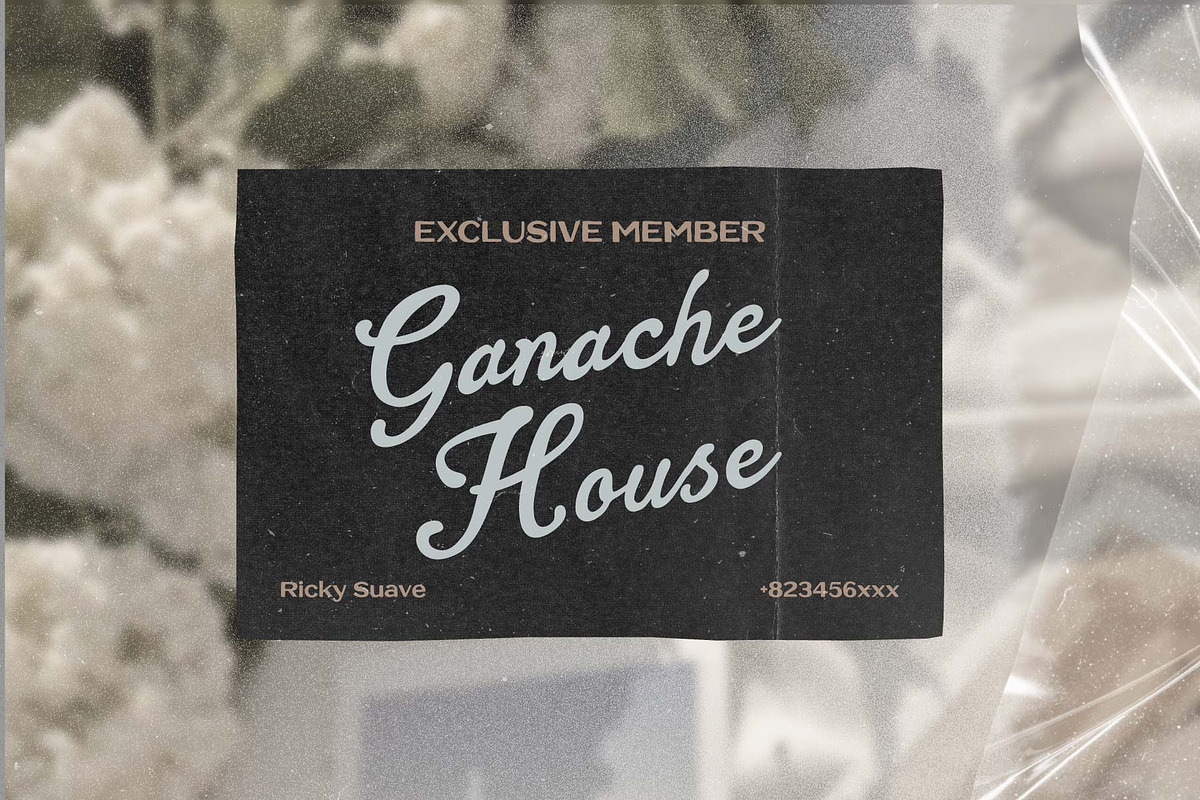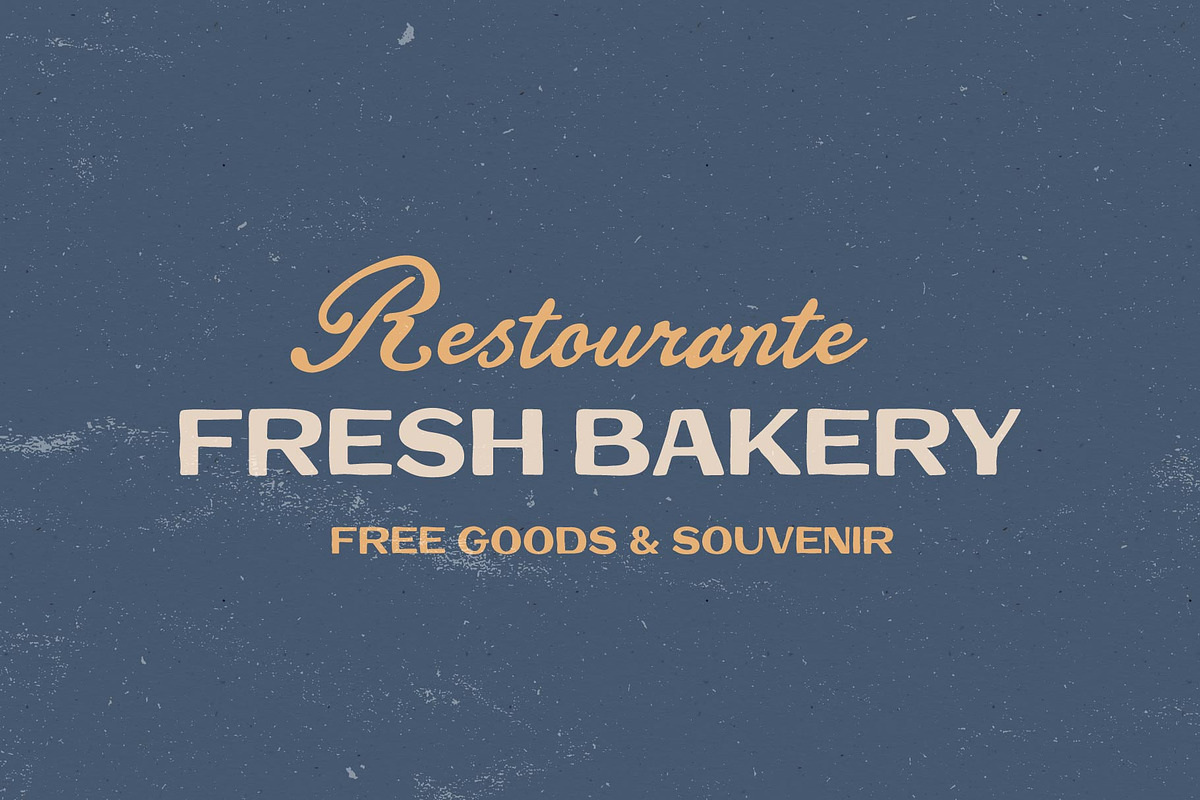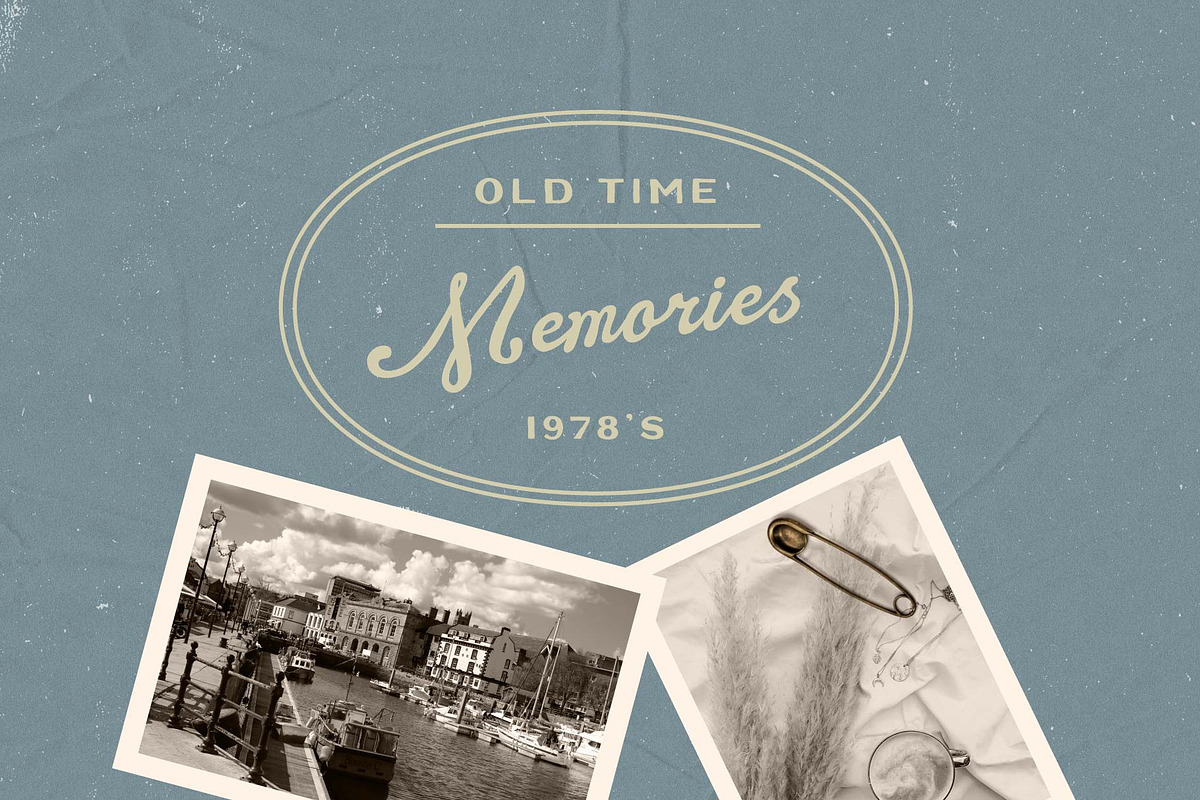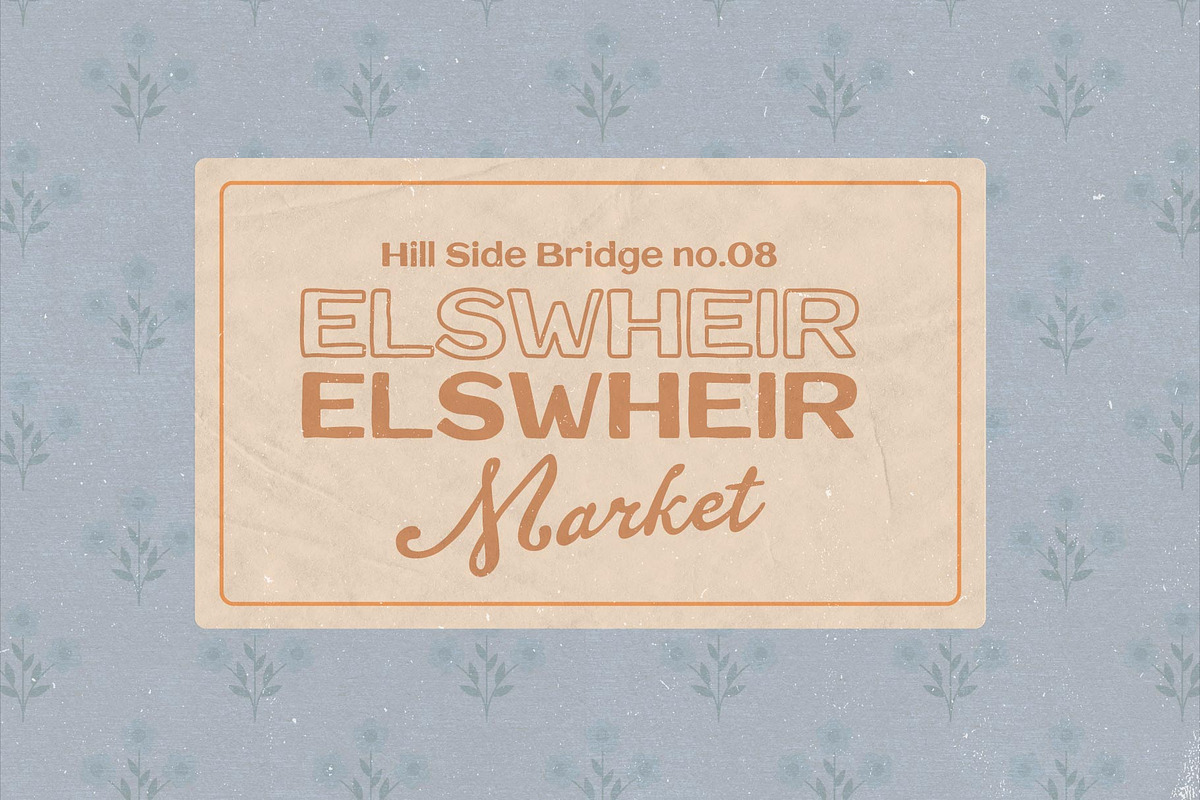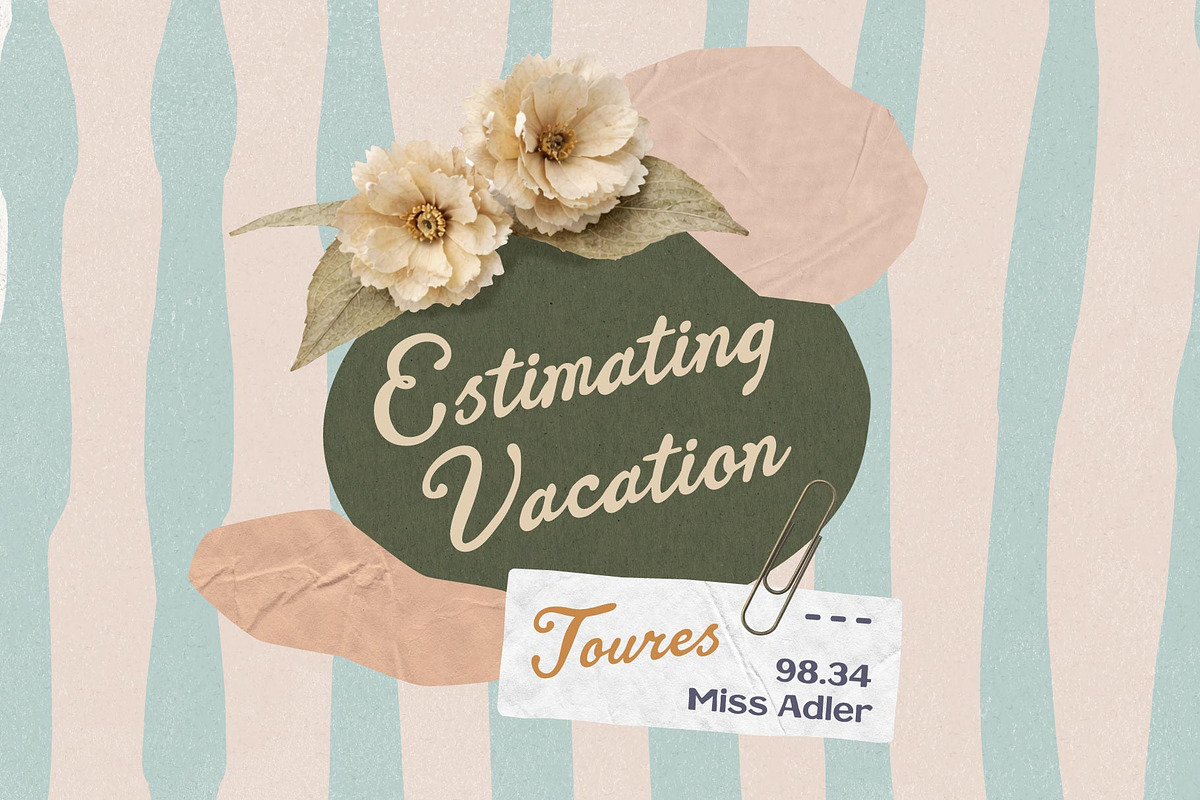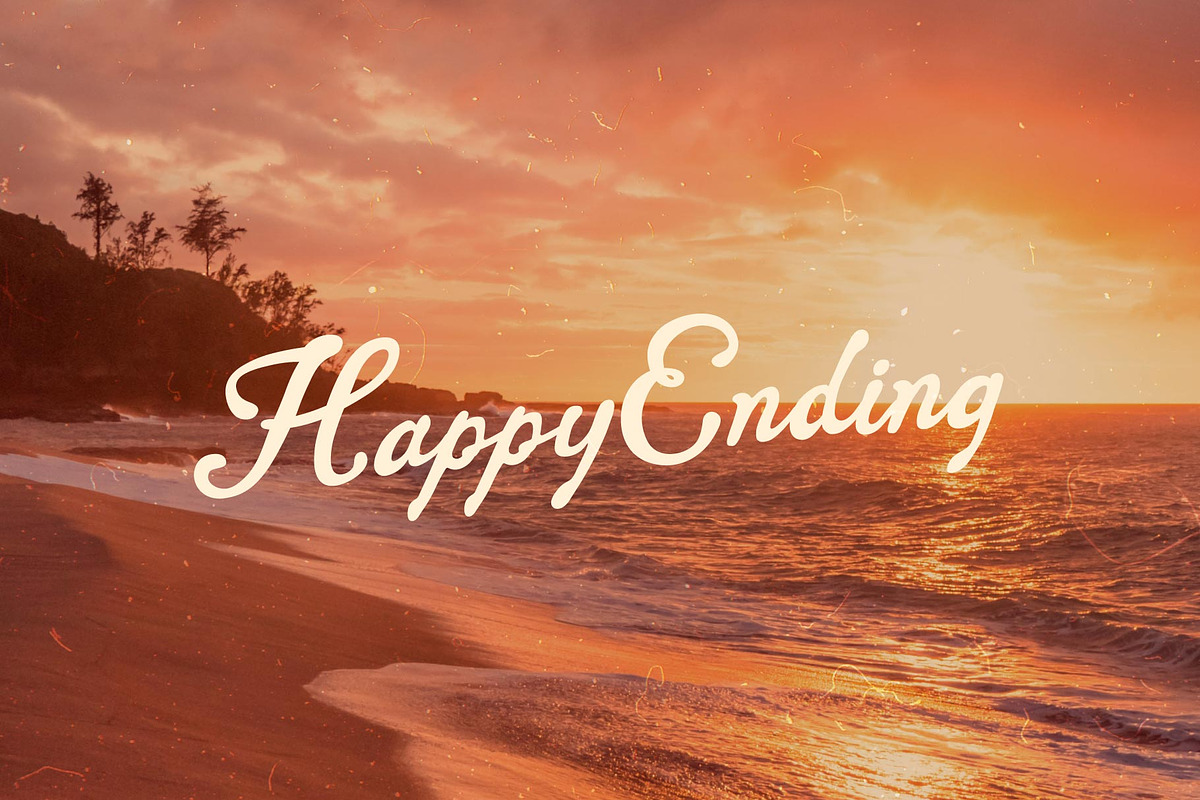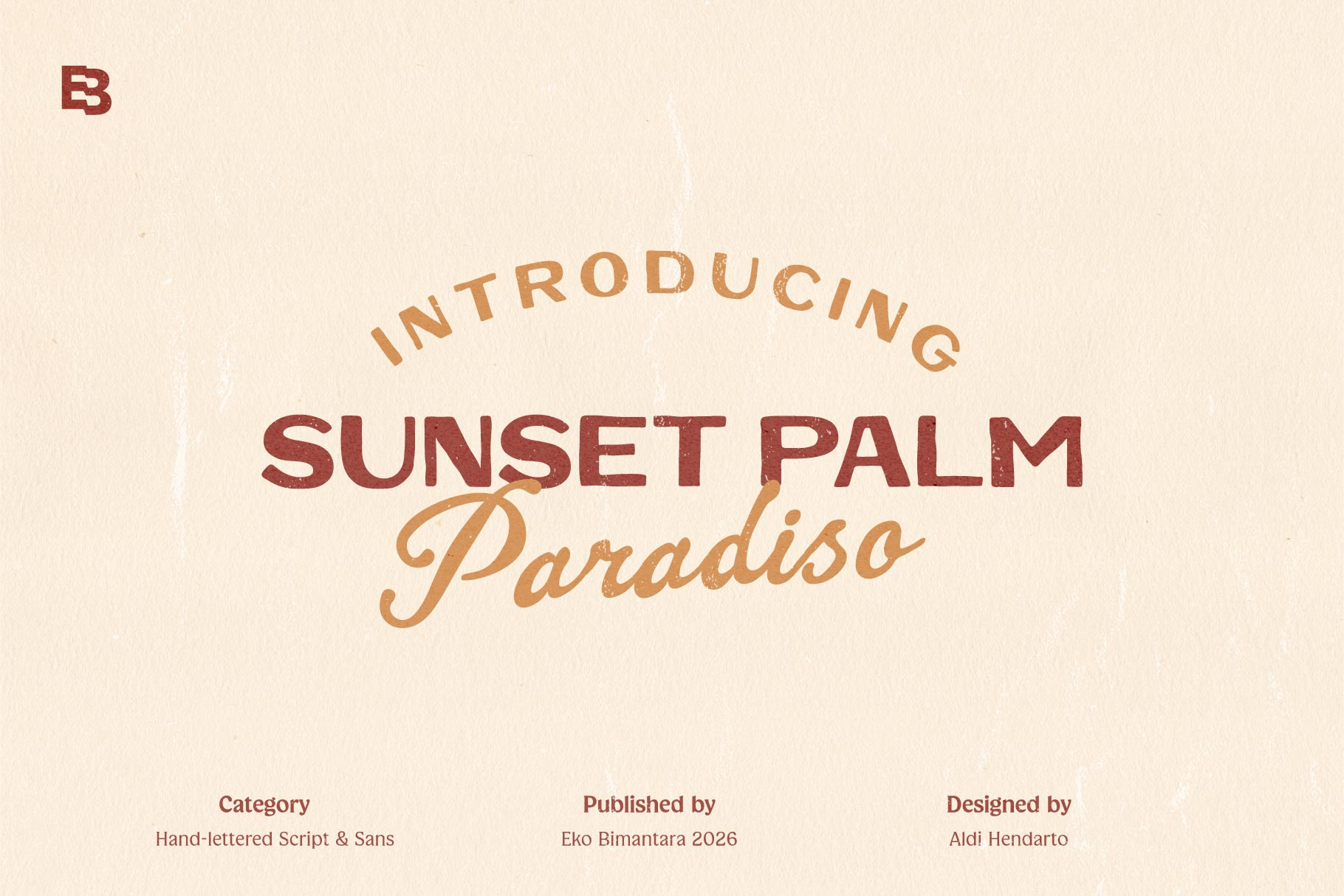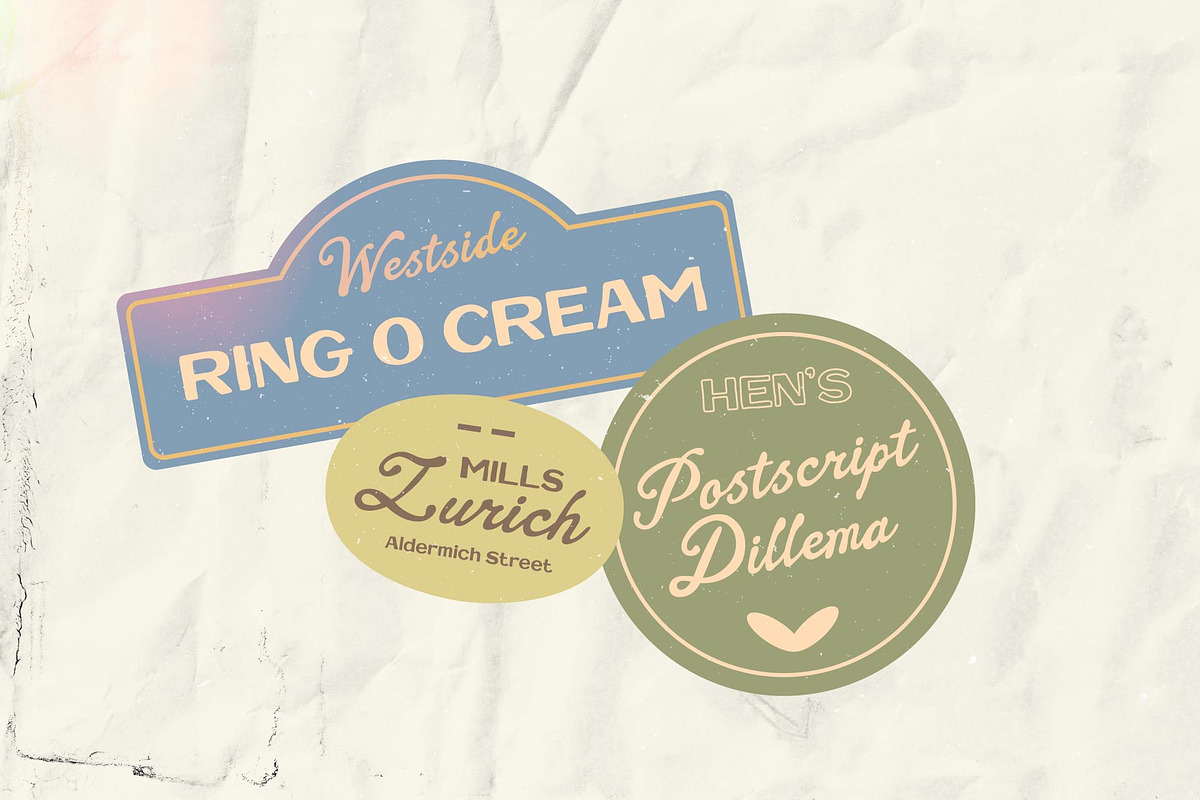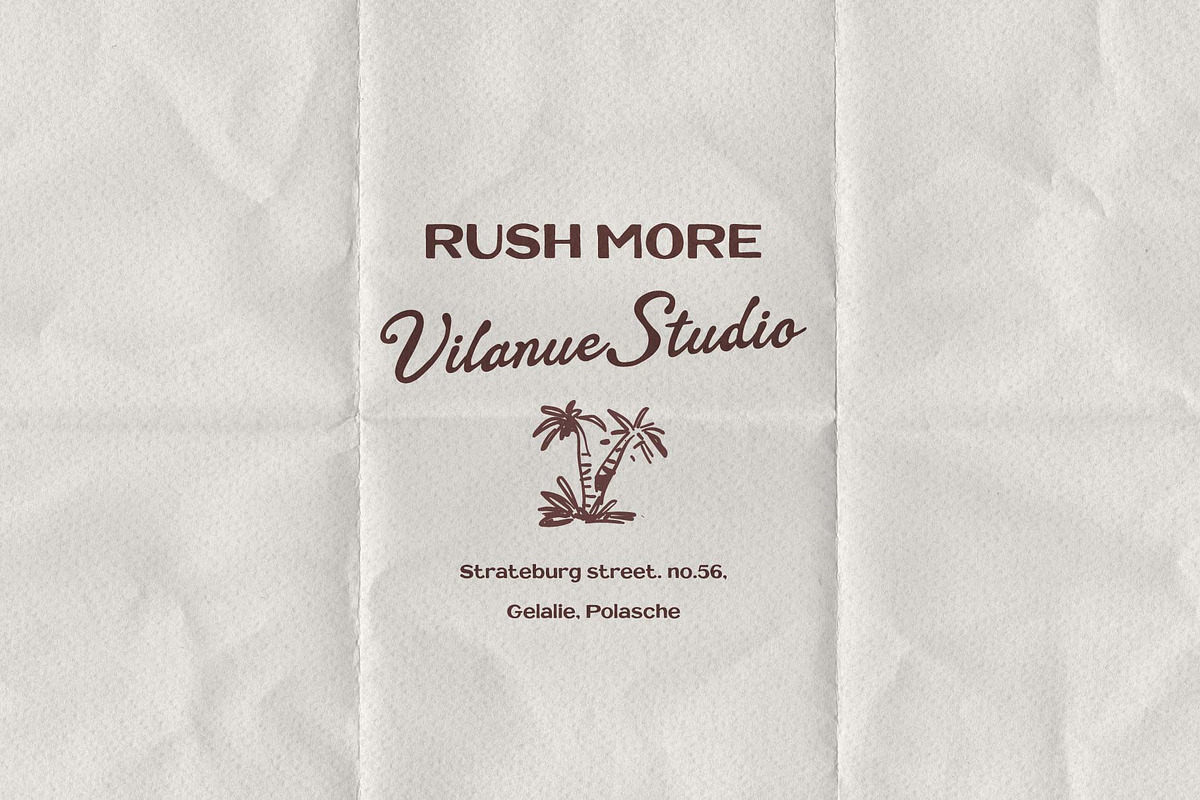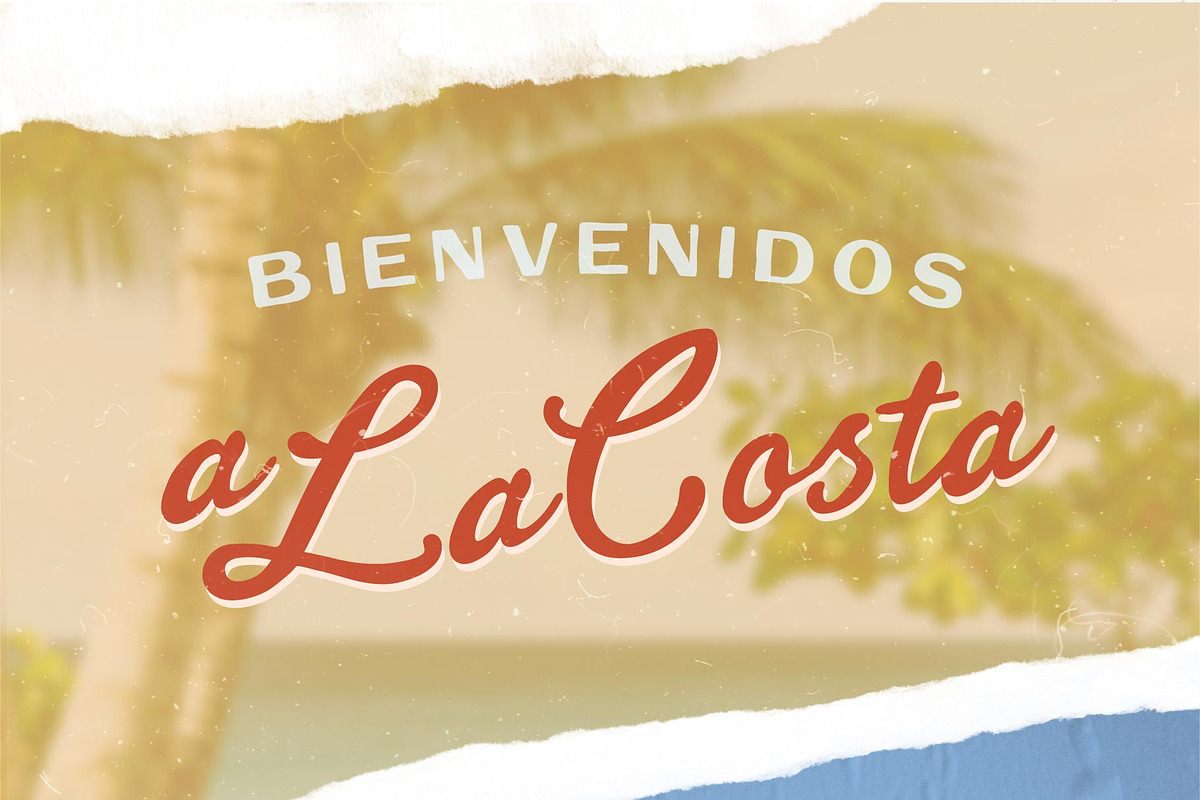
Sunset Palm; Vintage Fonts
Sunset Palm is a warm and character-rich typeface pairing inspired by vintage beach signage and mid-century tropical aesthetics. Blending a bold, rounded sans serif with a flowing retro script, this duo captures the relaxed elegance of sunset moments by the coast. Designed to evoke nostalgia, calm, and sunny optimism, Sunset Palm is perfect for branding, hotel and resort identities, packaging, posters, and lifestyle designs that seek a timeless yet friendly feel. Its balanced contrast makes it versatile and expressive, bringing a sense of laid-back sophistication and sun-kissed charm to every composition.